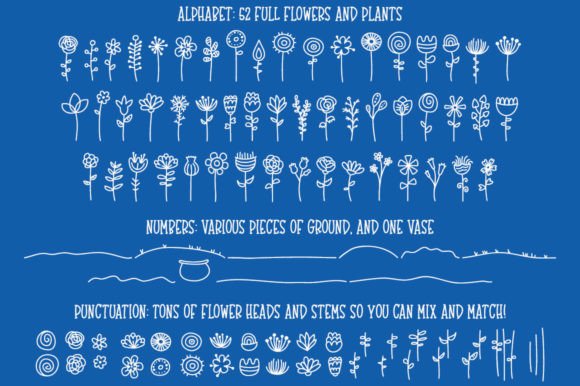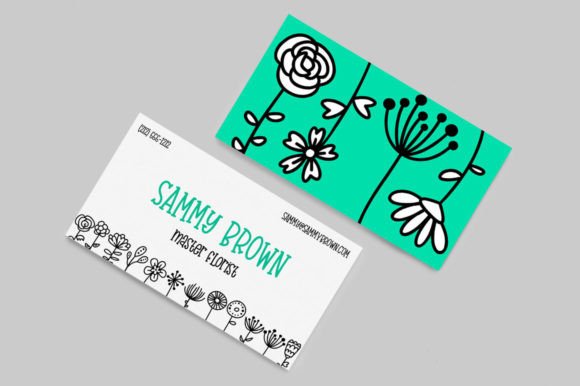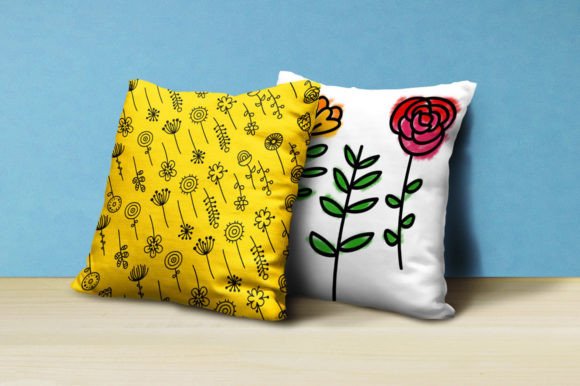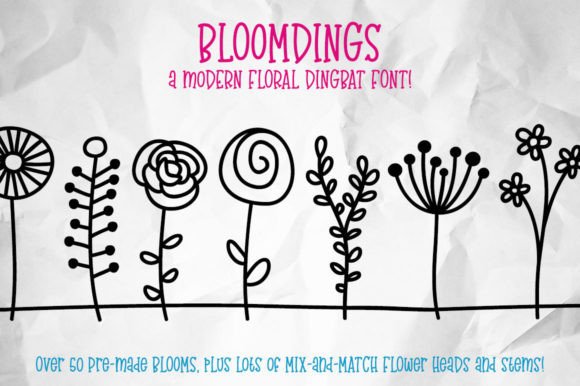
Bloomdings Font: Elevate Your Designs with Modern Abstract Flowers
Are you a designer or crafter looking for a unique and creative way to add a touch of elegance to your projects? Look no further than the Bloomdings font, a stunning dingbat font featuring modern abstract flowers. With over 50 complete flowers and floral elements, plus numerous individual parts, this font is perfect for creating custom designs that will leave a lasting impression.
What is Bloomdings Font?
Bloomdings is a specially designed dingbat font that showcases modern abstract flowers. Unlike traditional fonts, Bloomdings allows you to create custom flowers and floral arrangements using a simple keyboard. With a vast range of elements to choose from, you can mix and match to create the perfect flowers for your project.
Key Features of Bloomdings Font
• Over 50 complete flowers and greens: Mapped to A-Z and a-z keys, making it easy to access and use.
• 9 pieces of ground and 1 vase: Mapped to 0-9 keys, providing a solid foundation for your floral designs.
• 42 flower heads: Mapped to punctuation keys, offering a wide range of options for creating custom flowers.
• 24 flower stems: Also mapped to punctuation keys, allowing you to create stems of varying lengths and styles.
How to Use Bloomdings Font
Bloomdings font offers numerous benefits for designers and crafters, including:
• Unique and customizable designs: With Bloomdings, you can create one-of-a-kind flowers and floral arrangements that reflect your personal style.
• Time-saving: The font’s ease of use and extensive library of elements save you time and effort, allowing you to focus on other aspects of your project.
• Elegant and sophisticated designs: Bloomdings’ modern abstract flowers add a touch of elegance and sophistication to any project, making it perfect for high-end designs.
To get the most out of Bloomdings, here are a few tips and tricks:
• Experiment with different combinations: Don’t be afraid to try out different flowers and elements to create unique designs.
• Combine with other fonts: Bloomdings pairs well with a variety of fonts, so feel free to experiment with different combinations to find the perfect look for your project.
Bloomdings font is a versatile and creative tool that can elevate your designs and add a touch of elegance to any project. With its extensive library of modern abstract flowers and floral elements, ease of use, and compatibility with a wide range of design software, Bloomdings is perfect for designers and crafters looking to create unique and sophisticated designs. Download Bloomdings today and discover a world of creative possibilities!